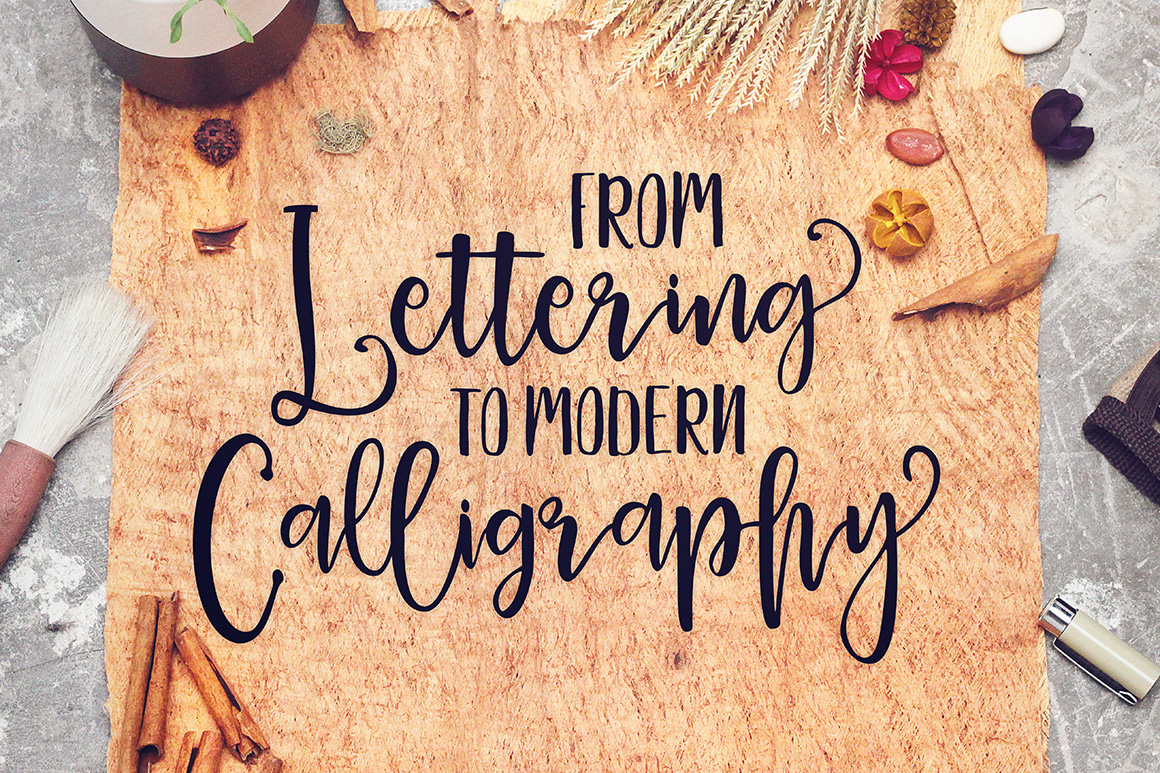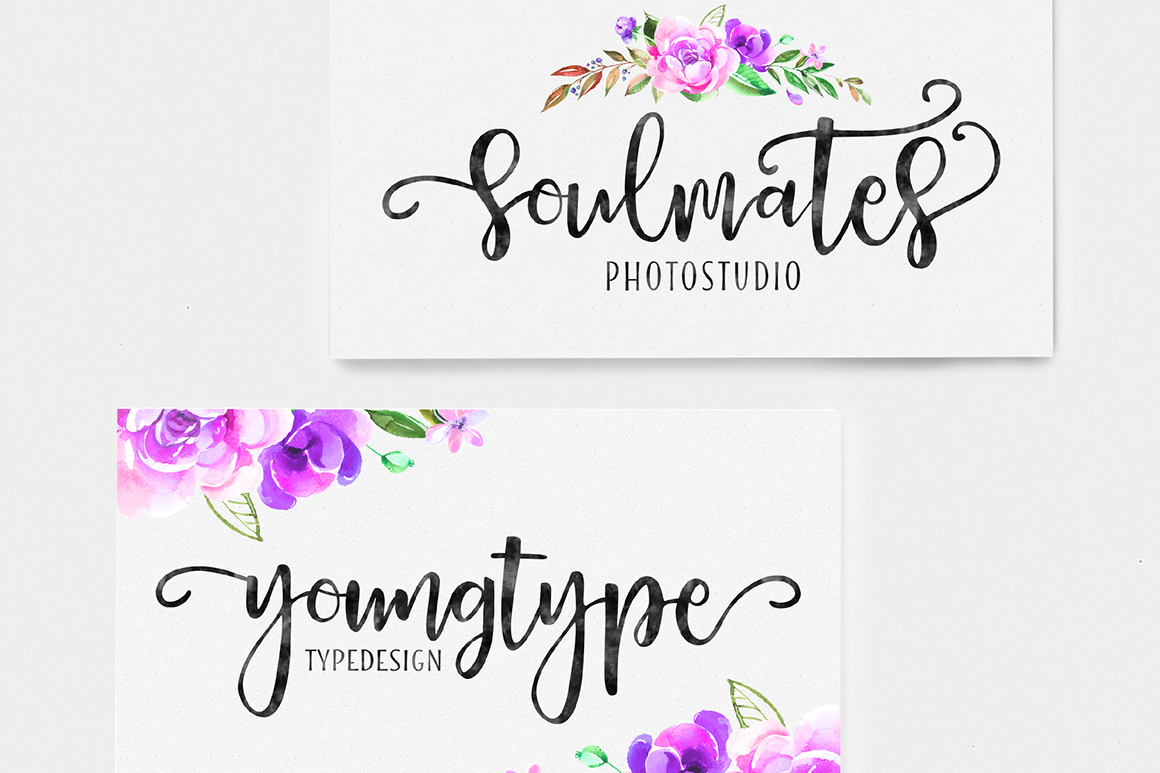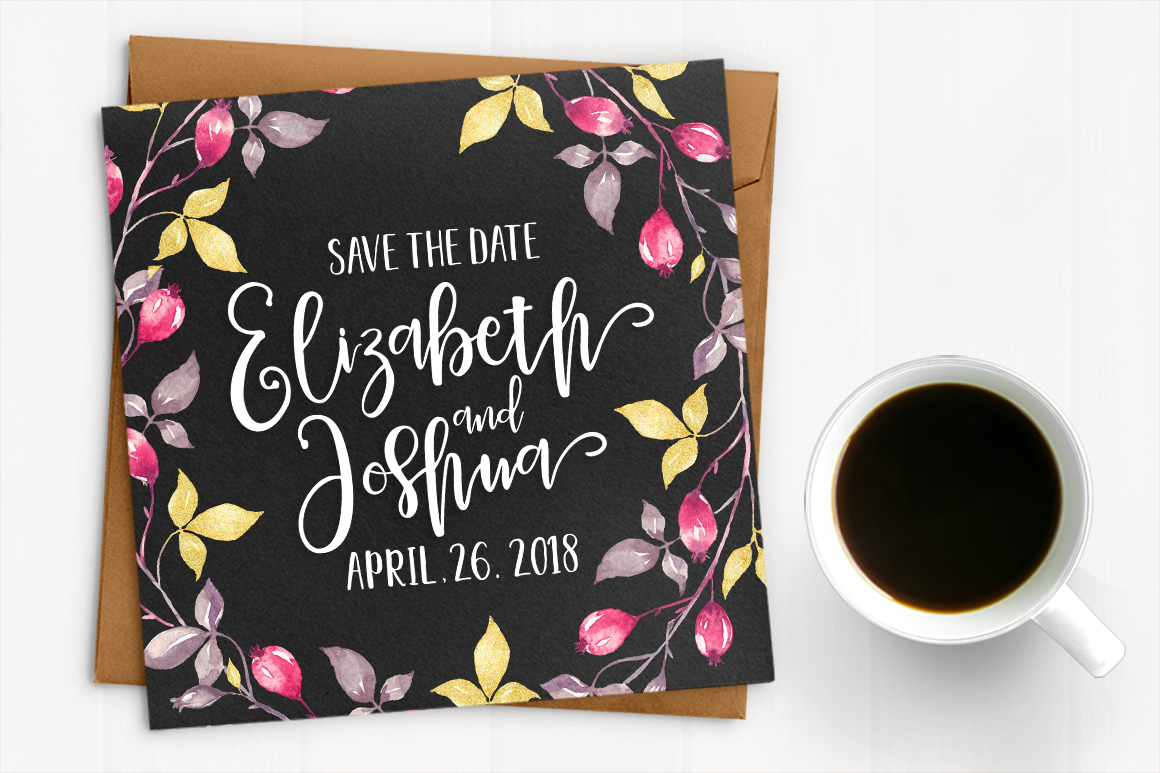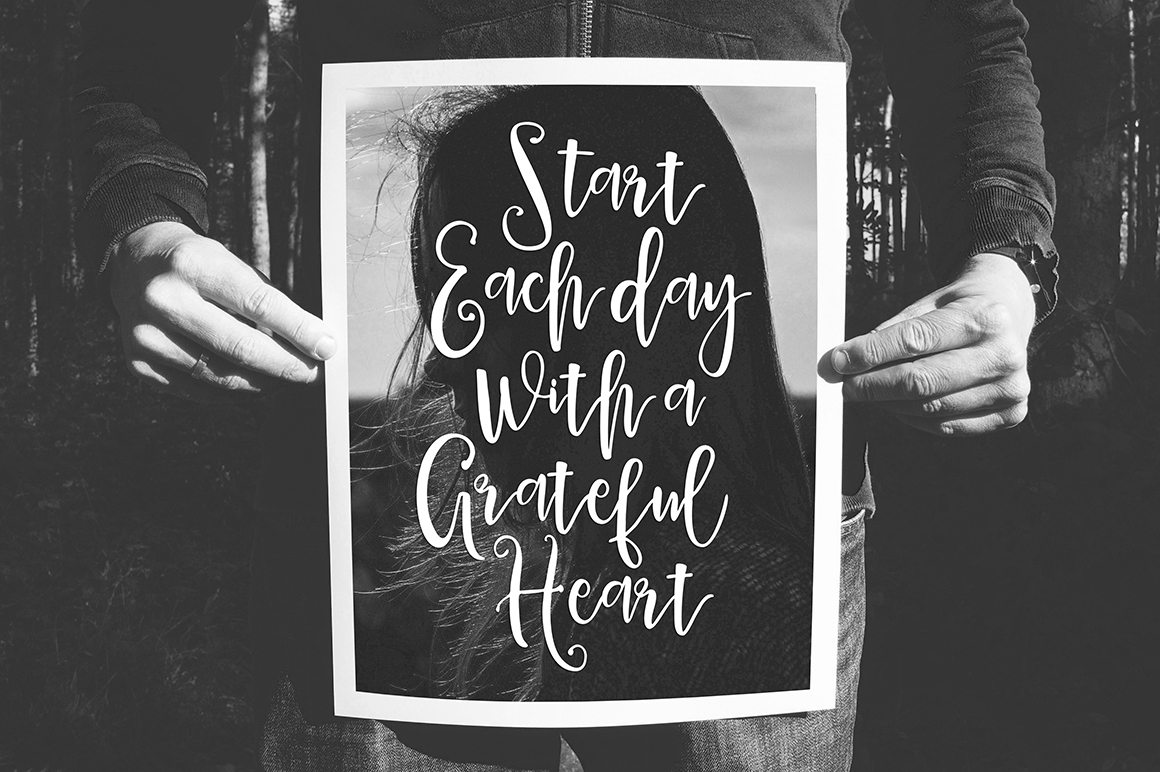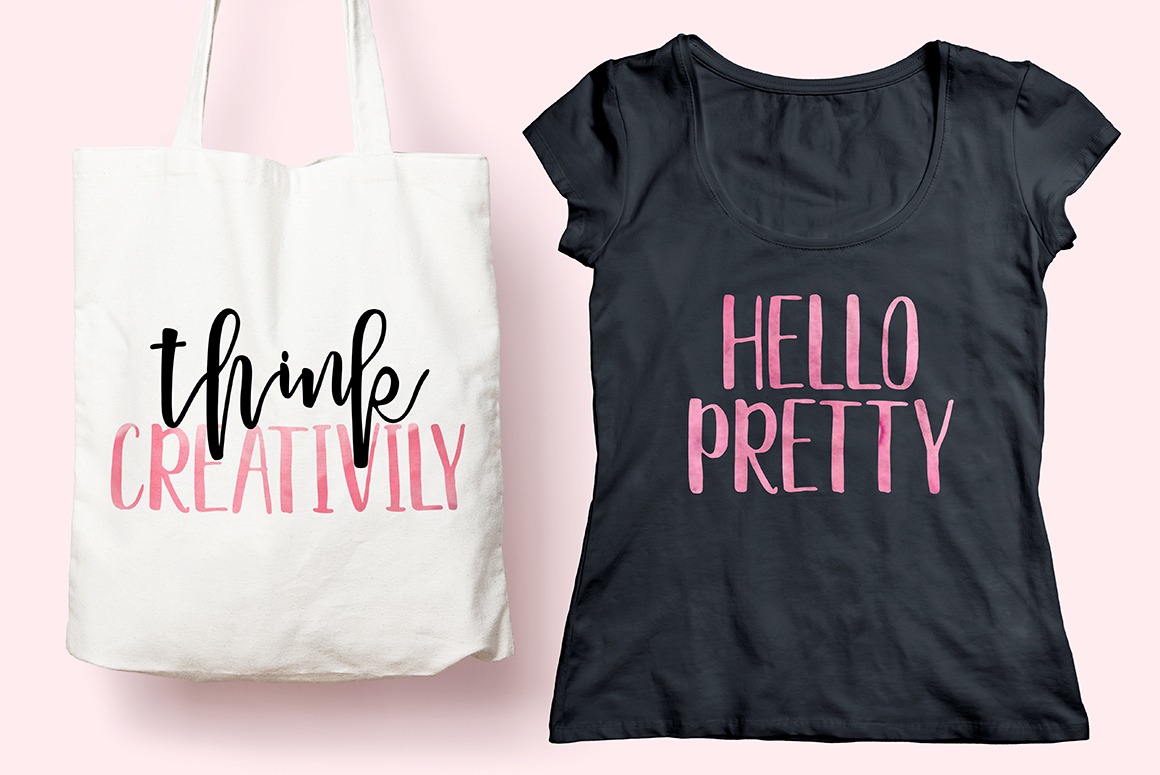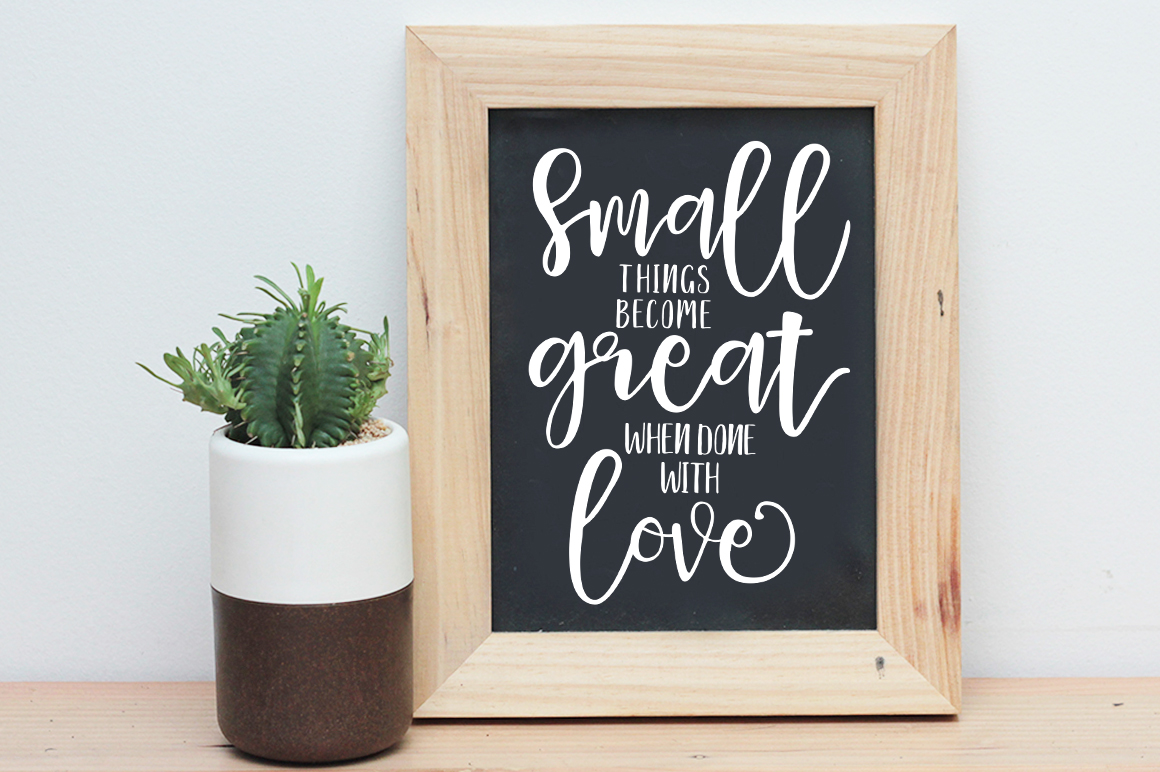
The Birth of a Beautiful Script Font
Have you ever found yourself doodling with a pen, letting the strokes flow freely across the page? That’s exactly what happened to the creators of Delaney Script Font, a beautiful hand-brushed font that captures the essence of handwritten elegance. Perfected digitally, this font features a flowing baseline that makes your text dance on your screen.
Delaney Script Font was born out of a desire to bring a touch of human imperfection to digital design. Its purpose is to add a personal, handwritten feel to your typography, making it perfect for designers who want to add a little extra flair to their projects. With its flowing lines and organic feel, Delaney Script Font is a valuable addition to any designer’s toolkit, offering a unique way to express themselves and connect with their audience.
- Unique Characteristics: Handwritten, elegant, and cursive script font with a touch of classic charm, ideal for wedding invitations, calligraphy, and other artistic projects
Delaney Script Font Review
As a designer, I’ve had the chance to work with the Delaney Script Font, and I must say it’s a unique and captivating addition to any project. ✨ One of its strengths is its elegant, handwritten feel, which adds a touch of sophistication and personality to text. It’s perfect for creating eye-catching headings, titles, or even entire paragraphs of text. ✨
- Beautifully handwritten feel
- Highly legible
- Great for creative projects
- Perfect for headings and titles
However, there are some limitations to consider. ⚠️ The font may not be ideal for large blocks of text, as it can become overwhelming and difficult to read. Additionally, the font’s script nature may make it challenging to use in situations where clarity and precision are crucial, such as in technical or instructional content. ⚠️
Overall, I think the Delaney Script Font is a great choice for designers looking to add a touch of elegance and whimsy to their projects. While it may not be suitable for every situation, it’s a valuable addition to any designer’s toolkit.
Getting the Most Out of Delaney Script Font
For optimal results, use Delaney Script Font in combination with bold or italic text to create contrast and visual interest.
Delaney Script Font is ideal for:
- Event promotion and marketing materials.
Alternatives to Delaney Script Font
Playfair Display is an elegant and luxurious script font. It’s ideal for use in high-end branding, luxury goods, and special occasion invitations. This font features intricate details and ornaments, making it perfect for creating a sophisticated and refined look.
Compared to Delaney Script Font, Playfair Display has a more formal and traditional feel. While Delaney has a softer and more modern look, Playfair Display is more ornate and classic. Playfair Display is also more suitable for large-scale typography, while Delaney is better suited for smaller text sizes.
Carolyna Pro is a beautiful and elegant script font with a touch of modernity. It’s perfect for use in branding, advertising, and editorial design. This font features a flowing and connected feel, making it ideal for creating a sense of movement and energy.
Compared to Delaney Script Font, Carolyna Pro has a more modern and dynamic feel. While Delaney has a softer and more classic look, Carolyna Pro is more edgy and contemporary. Carolyna Pro is also more suitable for use in digital design, while Delaney is better suited for print design.
Q: What is the recommended font size for using Delaney Script Font?
The recommended font size for Delaney Script Font is between 12pt and 24pt, depending on the context and design requirements. At smaller font sizes, the font may become difficult to read. At larger font sizes, the font may become overwhelming. Experiment with different font sizes to find the optimal balance for your design.